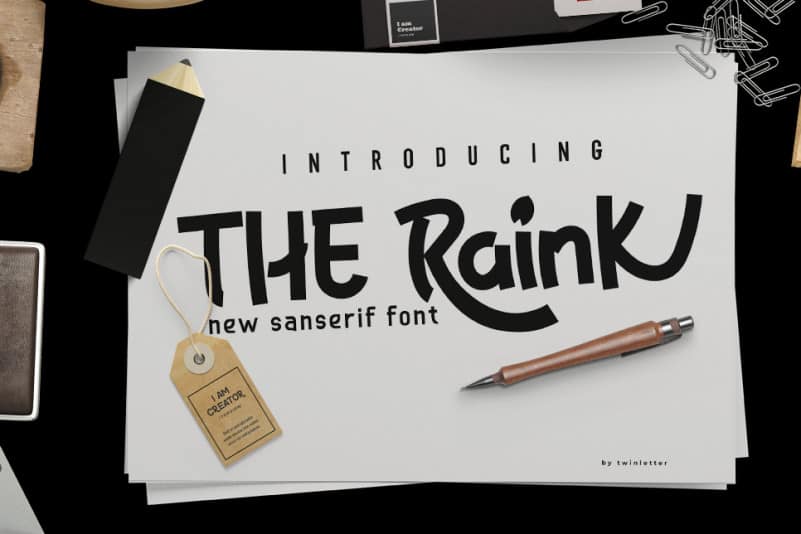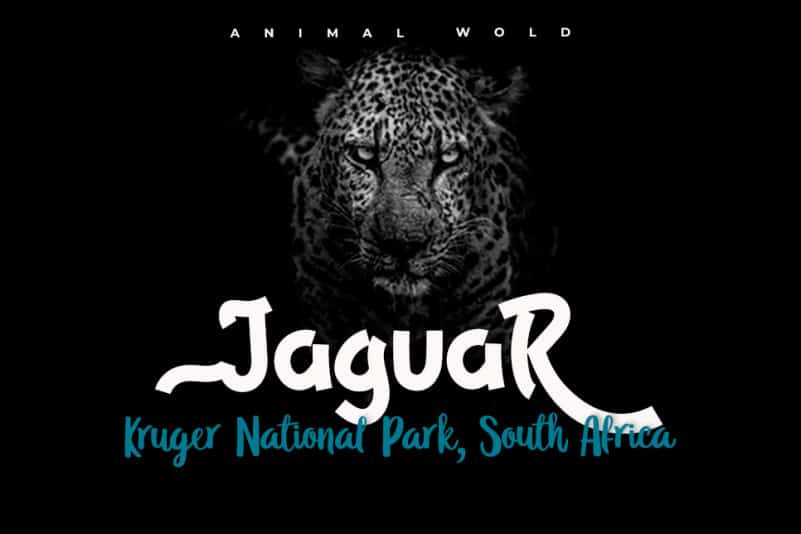
The Raink Display Font
The Raink Display Font is a new display font that is connected with clear style and dramatic movements. This font comes with uppercase letters, lowercase letters, numbers, punctuation marks, and so many variations on each character including alternating opentypes, common binders and additions to make you customize your design. Perfect to use for Logotype, Letterhead, Posters, Clothing Designs, Labels and all designs that require handwriting